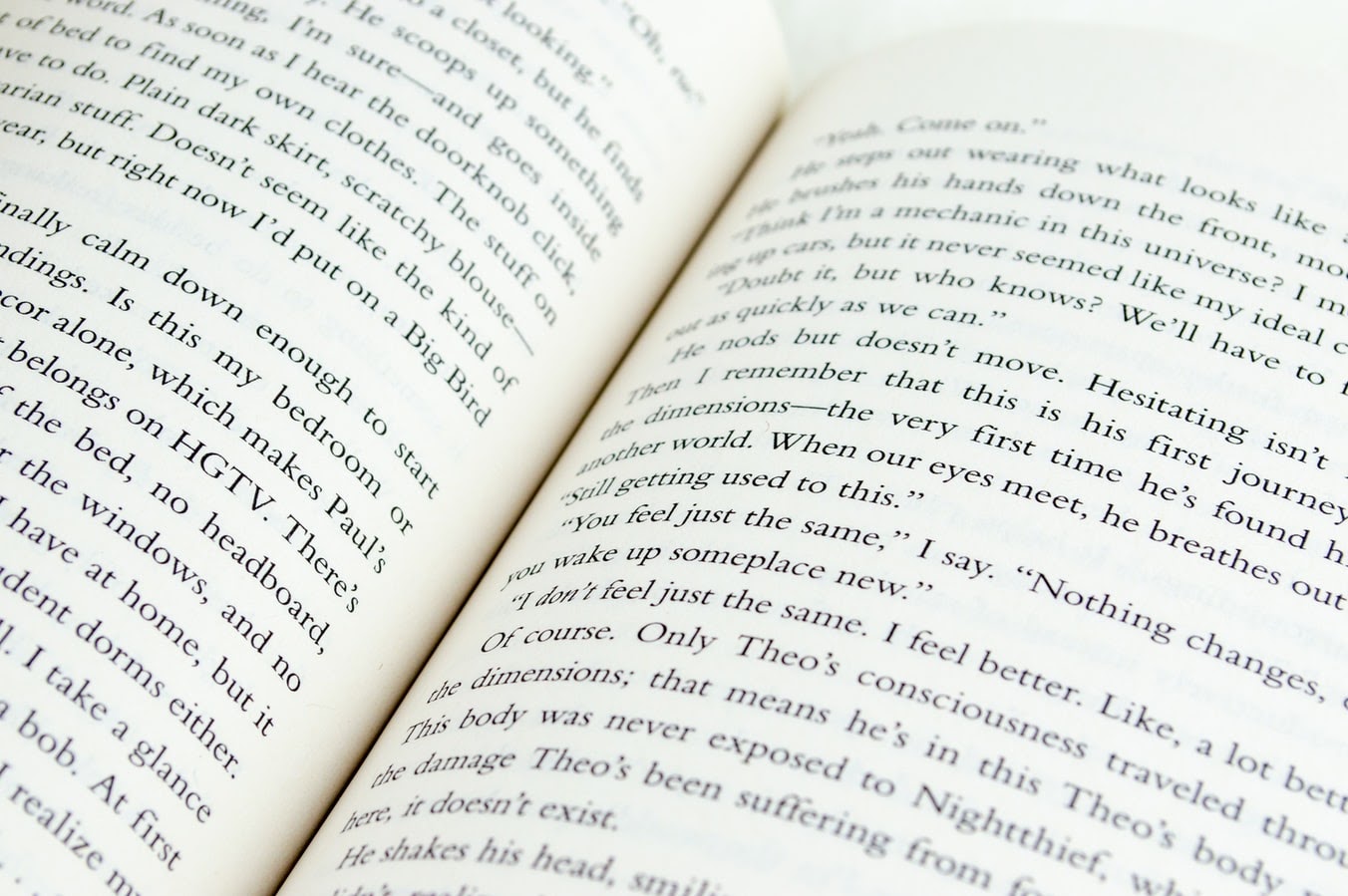
Best Font To Save Printer Ink . When it comes to choosing fonts that save ink, size matters. So there you have our experts shortlist of the best fonts which use less ink and toner cartridges. So, we’re here to present the fonts we consider the best for conserving ink when printing: Named for famed french publisher and type designer claude garamond, this elegant font is often praised for its low ink consumption. Should style and design come without compromise, you are best to stay clear of vegemite fonts such as times new roman to appeal to all readers of your printed articles. 8 best eco fonts that save money on ink and toner. Here is the list of economical fonts that use less (and toner) ink when printing compared to others: Here’s a list of the best ones to use if money’s an issue. A font with a long. Who would’ve thought that your font type makes a difference when saving on printer ink? For example, everybody’s favorite default font, times new roman, is pretty economical thanks to the thin letters. The smaller the surface area of the font, the less ink it requires to print.
Should style and design come without compromise, you are best to stay clear of vegemite fonts such as times new roman to appeal to all readers of your printed articles. The smaller the surface area of the font, the less ink it requires to print. So there you have our experts shortlist of the best fonts which use less ink and toner cartridges. Here’s a list of the best ones to use if money’s an issue. For example, everybody’s favorite default font, times new roman, is pretty economical thanks to the thin letters. So, we’re here to present the fonts we consider the best for conserving ink when printing: 8 best eco fonts that save money on ink and toner. When it comes to choosing fonts that save ink, size matters. Here is the list of economical fonts that use less (and toner) ink when printing compared to others: Who would’ve thought that your font type makes a difference when saving on printer ink?
Best Font To Save Printer Ink Should style and design come without compromise, you are best to stay clear of vegemite fonts such as times new roman to appeal to all readers of your printed articles. Who would’ve thought that your font type makes a difference when saving on printer ink? 8 best eco fonts that save money on ink and toner. Here’s a list of the best ones to use if money’s an issue. So, we’re here to present the fonts we consider the best for conserving ink when printing: Should style and design come without compromise, you are best to stay clear of vegemite fonts such as times new roman to appeal to all readers of your printed articles. For example, everybody’s favorite default font, times new roman, is pretty economical thanks to the thin letters. A font with a long. So there you have our experts shortlist of the best fonts which use less ink and toner cartridges. The smaller the surface area of the font, the less ink it requires to print. Here is the list of economical fonts that use less (and toner) ink when printing compared to others: Named for famed french publisher and type designer claude garamond, this elegant font is often praised for its low ink consumption. When it comes to choosing fonts that save ink, size matters.